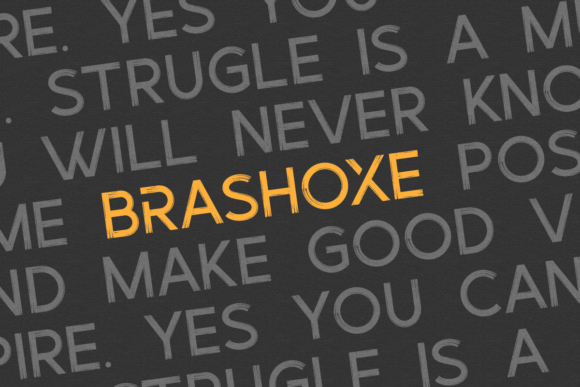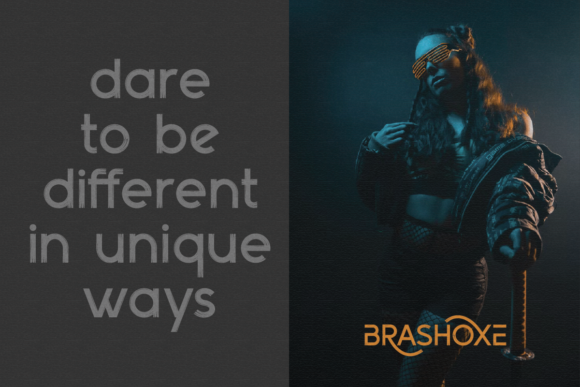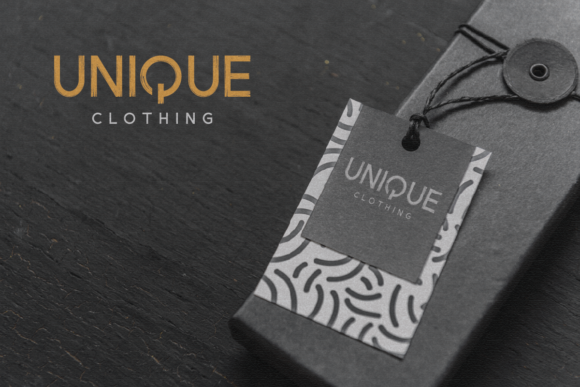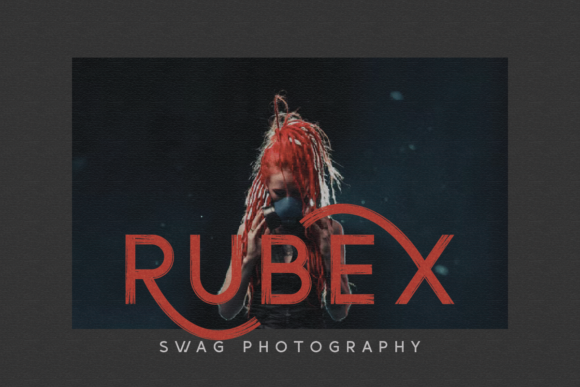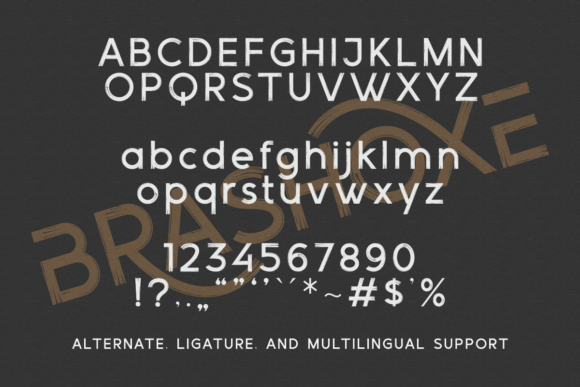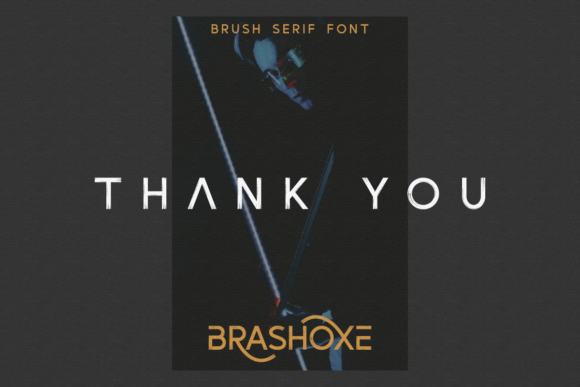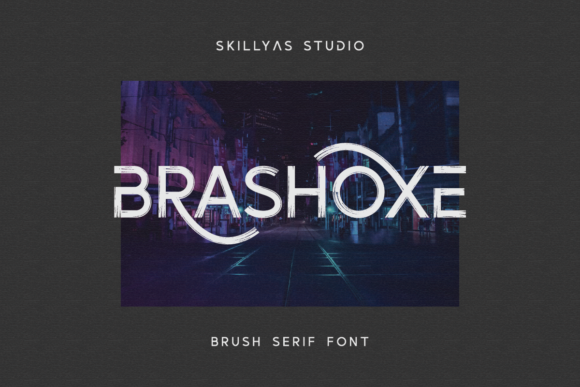
Introducing Brashoxe Font: The Ultimate Modern Display Font for Designers
In the world of typography, a font can make or break a design project. For designers and crafters looking for a cool and modern styled display font, Brashoxe Font is an excellent choice. This versatile font is perfect for logotypes, quotes, posters, magazines, and other design projects that require a touch of sophistication and elegance.
What Makes Brashoxe Font Stand Out?
Brashoxe Font boasts a unique and modern design that sets it apart from other fonts. Its sleek lines, curves, and swashes make it an ideal choice for designers looking to add a touch of personality to their projects. Whether you’re working on a logo, brochure, or social media graphic, Brashoxe Font is sure to make a statement.
Key Features of Brashoxe Font
- Modern and Cool Design: Brashoxe Font features a modern and cool design that’s perfect for designers looking for a font that’s both stylish and versatile.
- Wide Range of Uses: Brashoxe Font is perfect for a wide range of design projects, including logotypes, quotes, posters, magazines, and more.
Benefits of Using Brashoxe Font
So, why choose Brashoxe Font for your design projects? Here are just a few benefits of using this versatile font:
- Save Time: With Brashoxe Font, you can save time and effort in your design projects. Its modern and cool design makes it easy to create stunning visuals without spending hours searching for the perfect font.
- Stand Out from the Crowd: Brashoxe Font is a unique and stylish font that’s sure to make your designs stand out from the crowd. Whether you’re working on a logo, brochure, or social media graphic, this font is sure to grab attention.
- Easy to Use: This font is easy to use and customize, making it perfect for designers of all skill levels. Whether you’re a seasoned pro or just starting out, Brashoxe Font is easy to use and navigate.
How to Use Brashoxe Font in Your Design Projects
Using Brashoxe Font in your design projects is easy. Here are a few tips to get you started:
- Logotypes: Use Brashoxe Font to create stunning logotypes that make a statement. Its modern and cool design makes it perfect for branding and identity projects.
- Quotes and Posters: Add a touch of elegance and sophistication to your quotes and posters with Brashoxe Font. Its sleek lines and curves make it perfect for creating visually stunning designs.
- Magazines and Brochures: Use Brashoxe Font to add a touch of personality to your magazines and brochures. Its versatile design makes it perfect for a wide range of design projects.
In conclusion, Brashoxe Font is a cool and modern styled display font that’s perfect for designers and crafters looking for a versatile and stylish font. With its PUA encoding, wide range of uses, and easily accessible glyphs and swashes, this font is sure to become a staple in your design toolkit. So why wait? Download Brashoxe Font today and start creating stunning designs that make a statement!